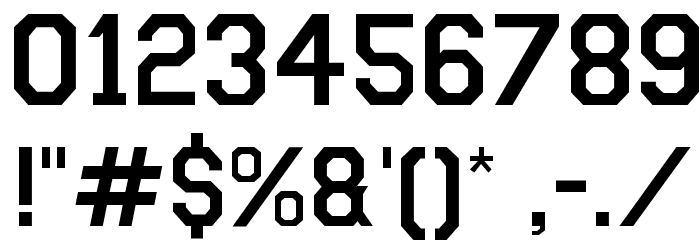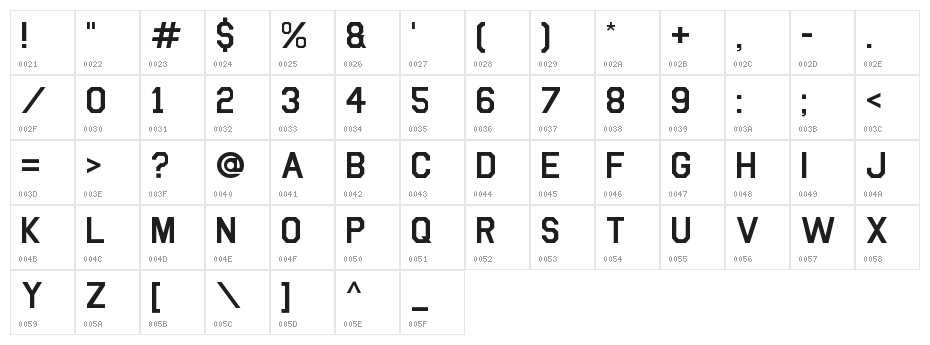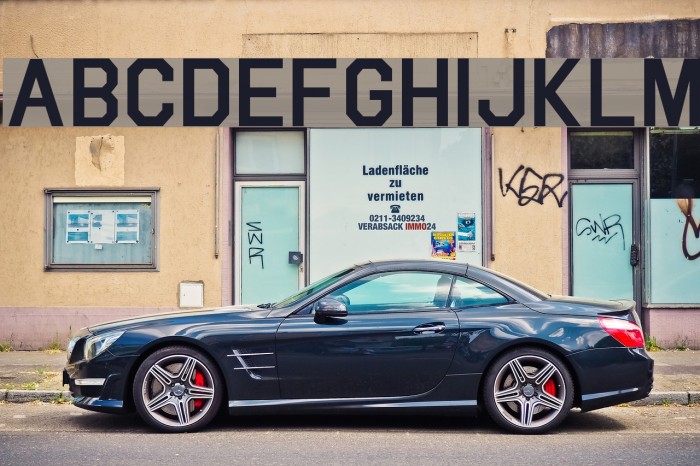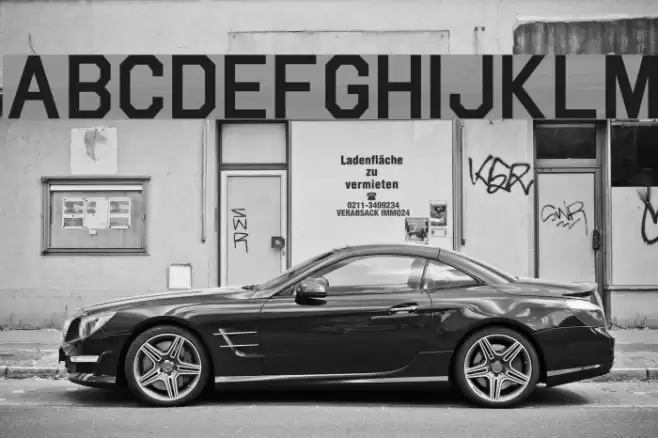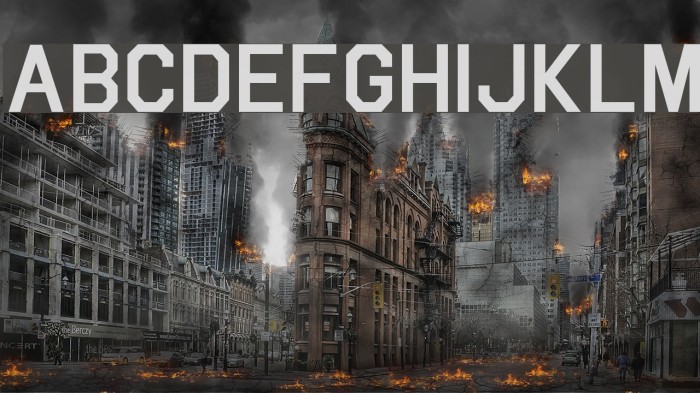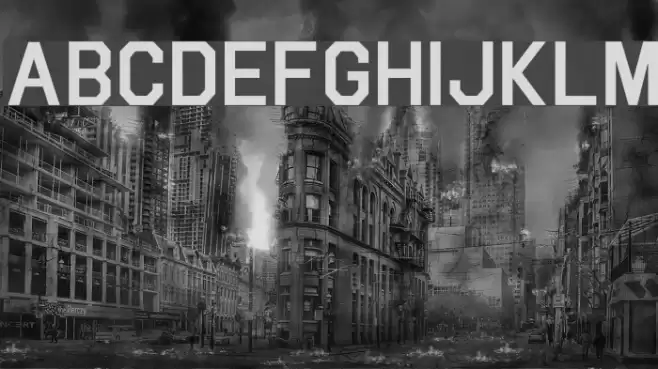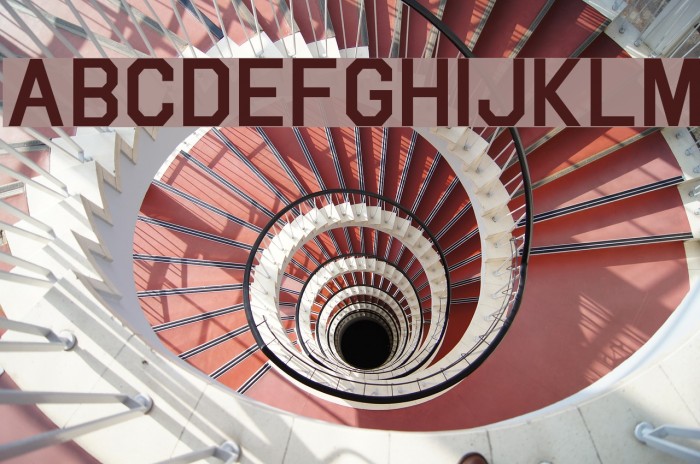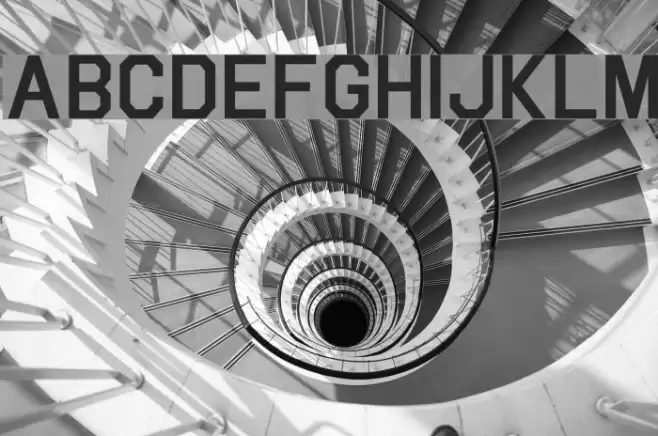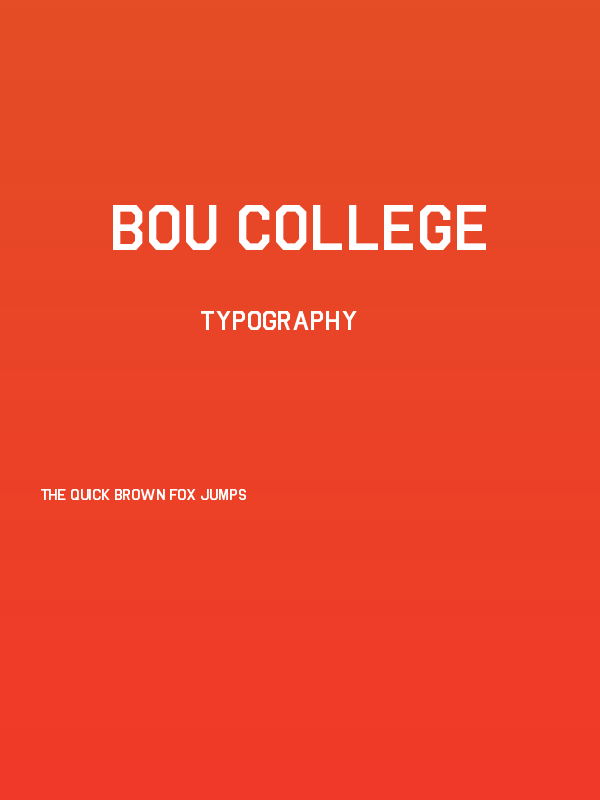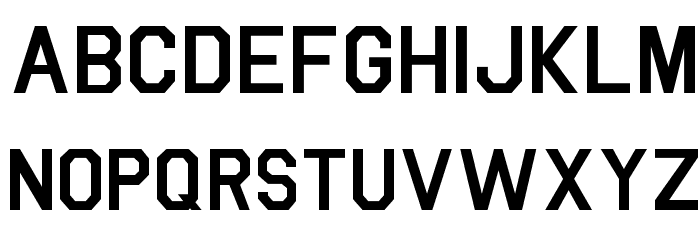
Bou College Font
Bou College Description
This font features a bold, geometric design with a strong presence. The characters are constructed with straight lines and sharp angles, giving it a modern and industrial feel. The uppercase letters are uniform in height, while the lowercase letters maintain a consistent style that complements the uppercase. The numerals are equally bold, ensuring readability and impact. Special characters are designed to match the overall aesthetic, making this font versatile for various uses. Its distinct style is reminiscent of collegiate or sports themes, making it ideal for projects that require a bold statement.
| Proposed Projects | Ideal for sports team branding, collegiate apparel, posters, and bold headlines. |